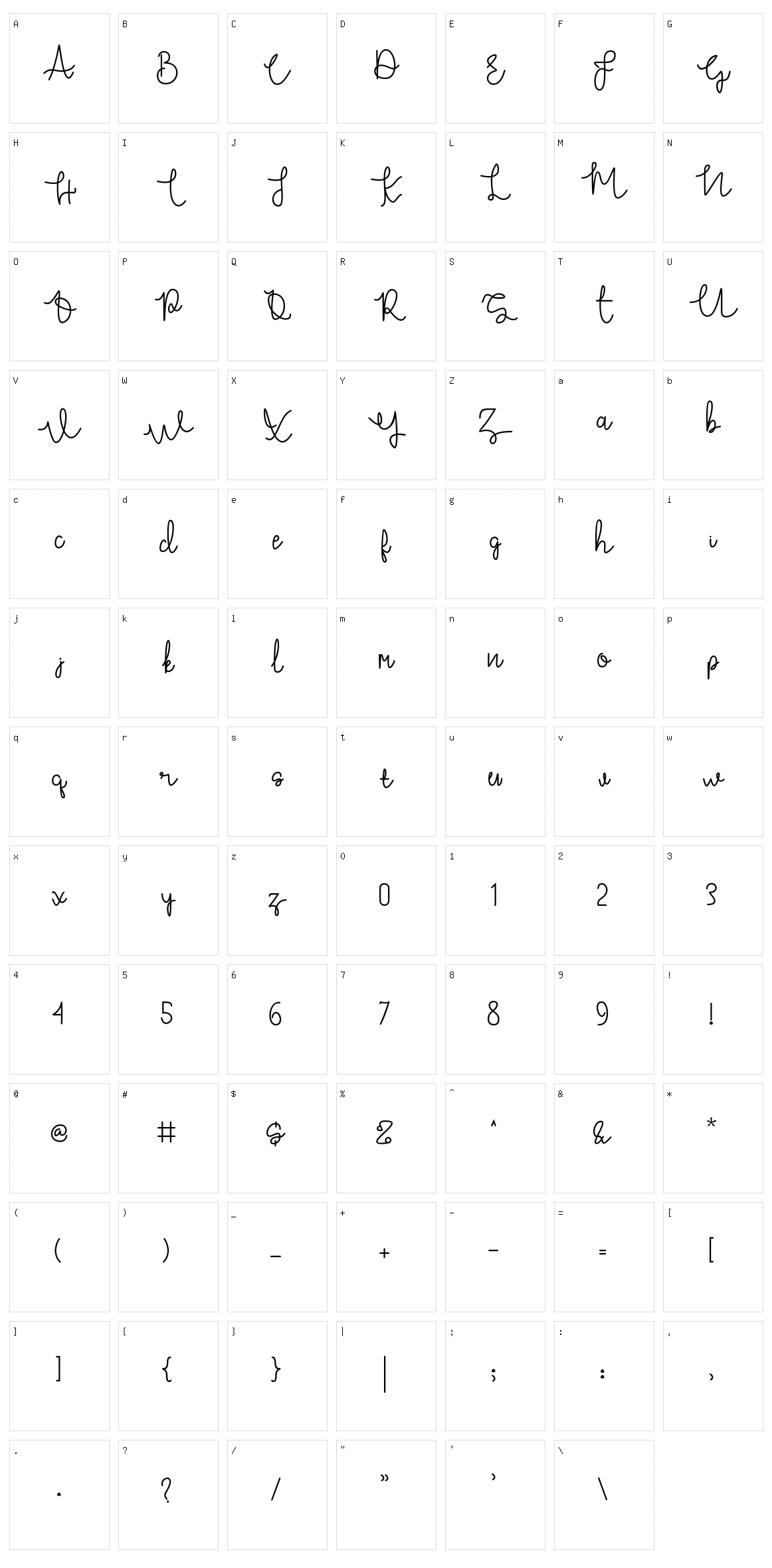
Bridal Tale, a modern calligraphy font, designed with the mix of modern and handwritten vibe.
It’s a must have font for your various purposes such as digital banners, wedding events, for your social media branding,
logo, t-shirt, printed invitations, and many more!